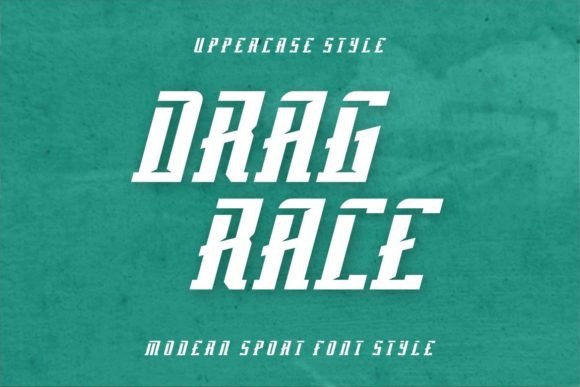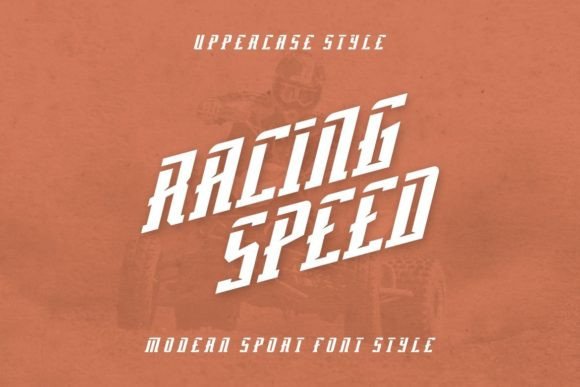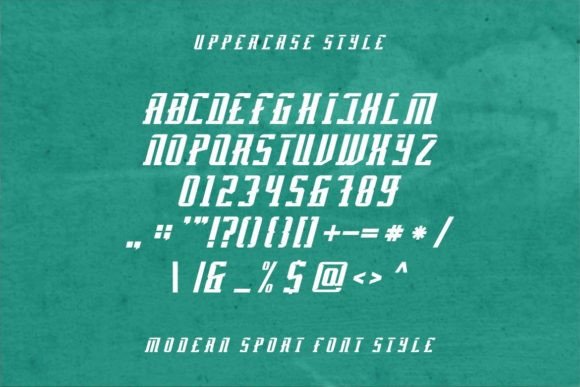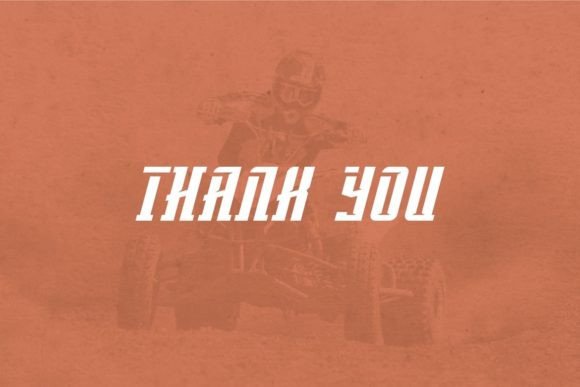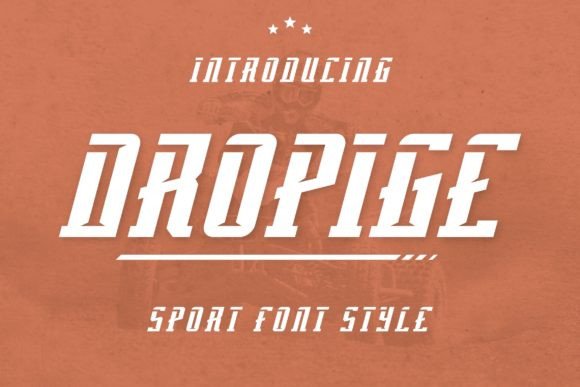
Introducing Dropige Font: The Ultimate Bold and Authentic Display Font
In the world of typography, a font can make or break a design project. For designers and crafters, finding the perfect font that embodies the essence of their brand or product is crucial. This is where Dropige Font comes in – a bold and authentic display font designed to elevate your branding projects to the next level. In this article, we’ll dive into the features and benefits of Dropige Font, and explore how it can be the perfect addition to your design arsenal.
What is Dropige Font?
Dropige Font is a carefully crafted display font that exudes confidence and style. Its bold and authentic design makes it perfect for any branding project that requires a statement piece. Whether you’re working on a logo, t-shirt printing, or creative products, Dropige Font is sure to make a lasting impression.
Key Features of Dropige Font
- Bold and Authentic Design: Dropige Font boasts a unique and eye-catching design that’s sure to grab attention. Its bold strokes and authentic feel make it perfect for creating a strong brand identity.
- Versatile: This font is incredibly versatile and can be used for a wide range of design projects, from logos and t-shirt printing to creative products and more.
- Easily Readable: Despite its bold design, Dropige Font is surprisingly easy to read, making it perfect for headlines, titles, and short paragraphs of text.
- High-Quality: Dropige Font is a high-quality font that’s designed to deliver crisp and clear results, even at large sizes.
Benefits of Using Dropige Font
So why choose Dropige Font for your design projects? Here are just a few benefits of using this amazing font:
- Stand Out from the Crowd: With Dropige Font, you can create designs that stand out from the crowd and grab attention. Its bold and authentic design ensures that your brand or product won’t get lost in the noise.
- Enhance Your Brand Identity: A great font can make a huge difference in your brand identity. Dropige Font can help you create a strong and consistent visual brand that resonates with your target audience.
- Save Time and Effort: With Dropige Font, you can save time and effort in your design process. Its versatility and ease of use mean you can create stunning designs quickly and easily.
How to Use Dropige Font
Using Dropige Font is incredibly easy. Here are a few tips to get you started:
- Pair it with Other Fonts: Dropige Font pairs perfectly with other fonts, creating a beautiful contrast that adds depth and interest to your designs.
- Experiment with Colors: The bold design of Dropige Font makes it perfect for experimenting with different colors and gradients.
- Use it for Headlines and Titles: Dropige Font is perfect for headlines and titles, adding a touch of elegance and sophistication to your designs.
In conclusion, Dropige Font is an exceptional bold and authentic display font that’s perfect for designers and crafters looking to elevate their branding projects. Its versatility, ease of use, and high-quality design make it an excellent addition to any design arsenal. Whether you’re working on a logo, t-shirt printing, or creative products, Dropige Font is sure to make a lasting impression. So why wait? Download Dropige Font today and take your designs to the next level!